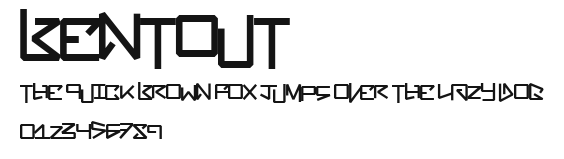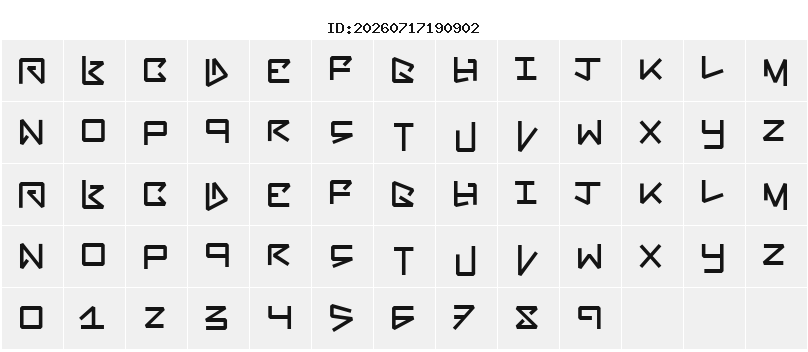
BentOut Preview
• Font Name: BentOut
• Designer: max infeld
• Manufacturer: xerographer.com
• Description: Made in Ojai,california
About BentOut.ttf
BentOut.ttf is a modern, elegant sans-serif font designed for ultimate readability and visual harmony. Perfect for branding, headlines, web design, and print materials.